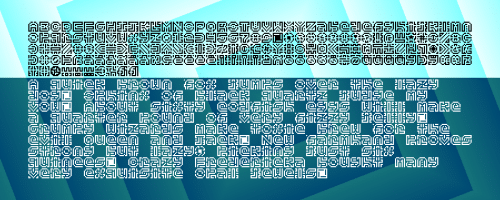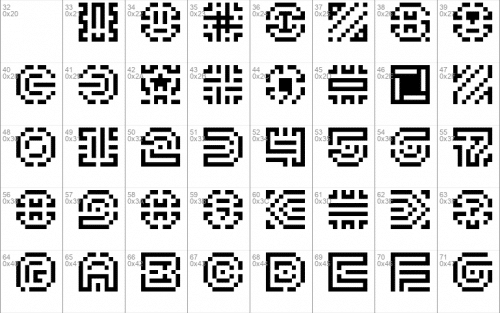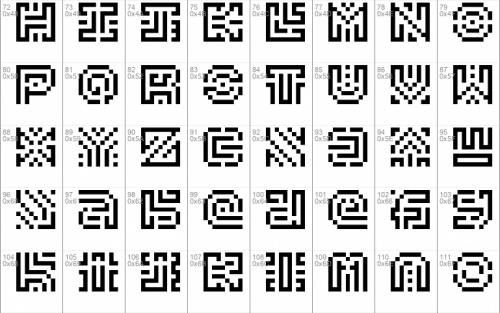
Byzantine Exasperation Font is a chimera (fusion) which combines inline-versus-outline, maze, and other techniques to produce a timeless look. Original size: 6.75pt (use multiples of this value for pixel perfection)